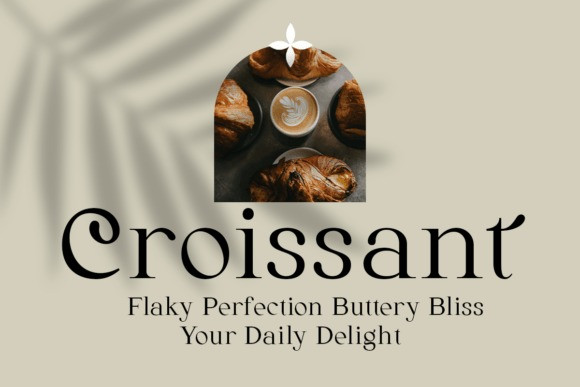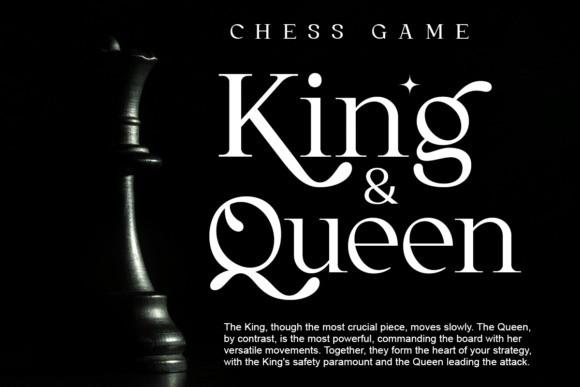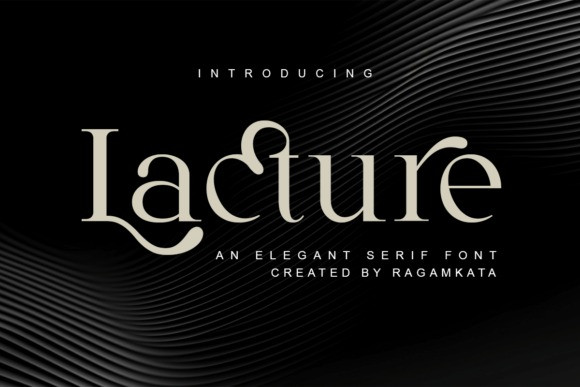
Lecture Font
Lecture Font is a refined and elegant serif font crafted to elevate your most sophisticated design projects. With its graceful curves, high-contrast strokes, and distinctive ligatures, Lature exudes timeless beauty and prestige.
Perfectly suited for editorial layouts, luxury branding, fashion headlines, high-end packaging, invitations, and more, Lature adds a touch of classic sophistication to any composition. Its balanced proportions and smooth letterforms ensure both exceptional readability and a unique visual identity